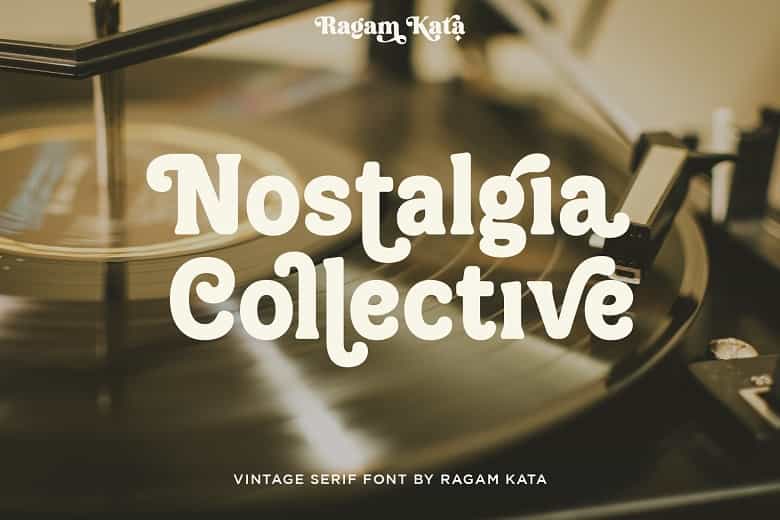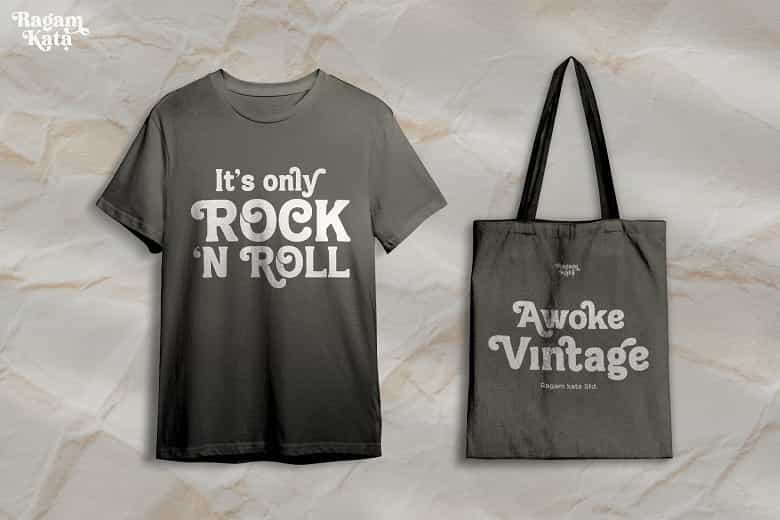
Nostalgia collective is a modern vintage serif font with a touch of classicism. As for the letters, Nostalgia Collective offers many options for each of them, which allows for a great variety of the text’s look. Each letter has its alternative that can be used to enhance the overall look of your designs in a rather artistic way.